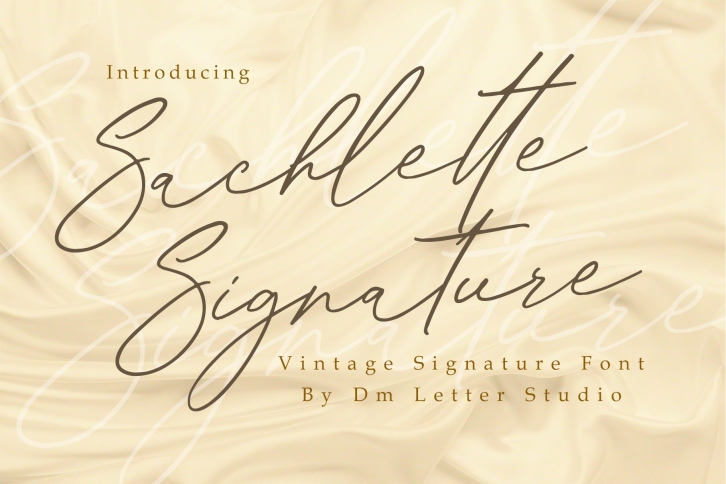
Sachlette Signature is a trendy and unique font with an authentic style. It was designed by DMletterstudio and it's a great choice for creative people who need such a font. It was released on September 17, 2020 and the file size is 2.65 MB. Sachlette Signature will add an organic vibe to any design idea!